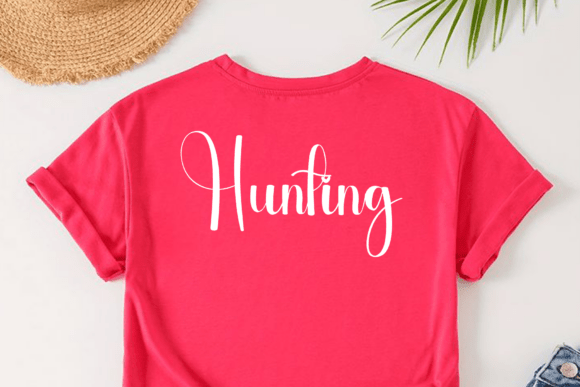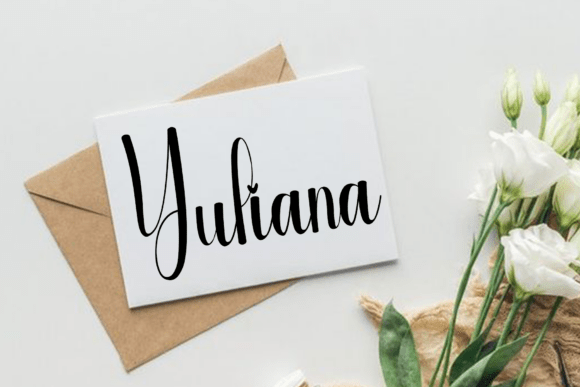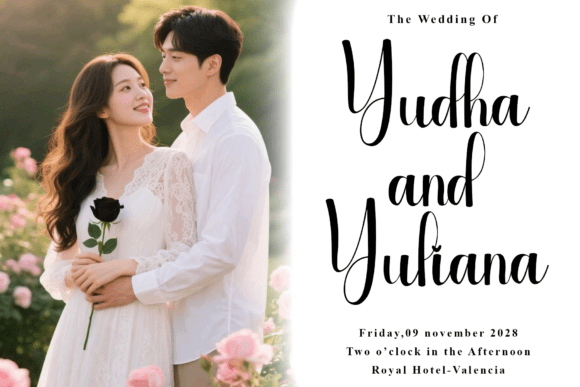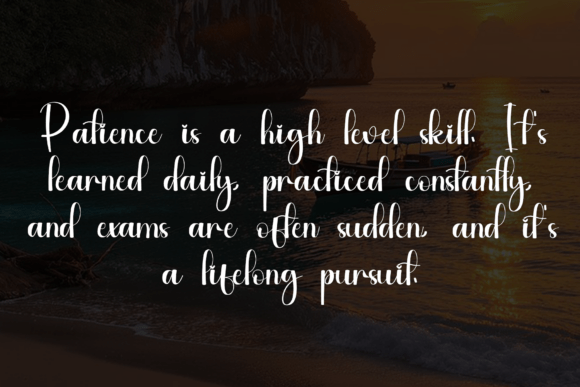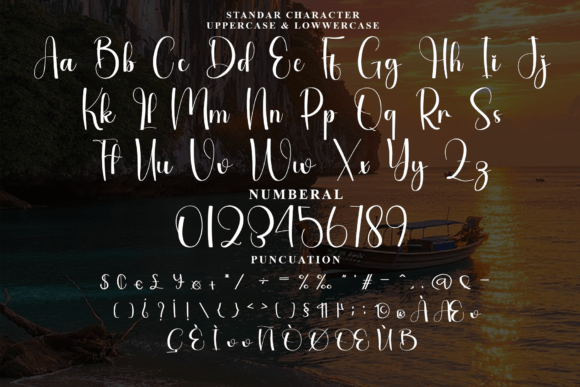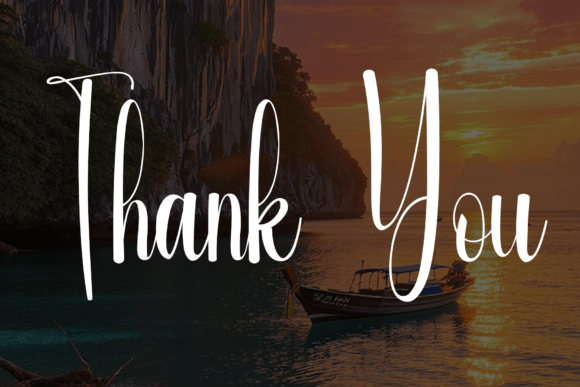
Introducing Chunky Holiday Font: Elevate Your Designs with a Touch of Elegance
Are you tired of using the same old fonts for your holiday designs? Look no further than the Chunky Holiday Font, a unique and professional addition to the modern handwritten collection. This stunning font is designed to evoke a sense of clarity and crisp elegance, making it perfect for designers and crafters looking to add a touch of sophistication to their work.
What Sets Chunky Holiday Font Apart
Chunky Holiday Font boasts tall, thin strokes with a subtle, airy slant, giving it a refined aesthetic that feels as fresh as a mountain breeze. Its clean and approachable style makes it ideal for a variety of design applications, including travel photography, branding for outdoor gear, and sophisticated web design. Whether you’re creating a festive holiday card or a sleek website, this font is sure to impress.
Key Features of Chunky Holiday Font
- Unique and Professional Design: Chunky Holiday Font is a one-of-a-kind addition to the modern handwritten collection, offering a distinctive look that’s sure to set your designs apart.
- Tall, Thin Strokes: The font’s tall, thin strokes give it a sleek and elegant appearance, perfect for creating sophisticated designs.
- Subtle, Airy Slant: The subtle slant of the font adds a touch of whimsy and playfulness, making it ideal for holiday designs.
- Clean and Approachable Style: The font’s clean and approachable style makes it perfect for a variety of design applications, from travel photography to web design.
Uses for Chunky Holiday Font
Chunky Holiday Font is incredibly versatile, making it perfect for a wide range of design applications. Here are just a few ideas to get you started:
- Holiday Cards and Invitations: Add a touch of elegance to your holiday cards and invitations with Chunky Holiday Font.
- Travel Photography: Use the font to add a sophisticated touch to your travel photography, creating a sense of adventure and exploration.
- Outdoor Gear Branding: The font’s clean and approachable style makes it perfect for branding outdoor gear, such as hiking boots, camping equipment, and more.
- Sophisticated Web Design: Use Chunky Holiday Font to create a sleek and sophisticated website that’s sure to impress.
Why Choose Chunky Holiday Font?
With so many fonts to choose from, why choose Chunky Holiday Font? Here are just a few reasons why this font stands out from the crowd:
- Unique Design: Chunky Holiday Font is a one-of-a-kind design that’s sure to set your work apart.
- High-Quality: The font is designed to be high-quality and crisp, making it perfect for use in a variety of design applications.
- Easy to Read: The font’s clean and approachable style makes it easy to read, even at small sizes.
- Versatile: Chunky Holiday Font is incredibly versatile, making it perfect for a wide range of design applications.